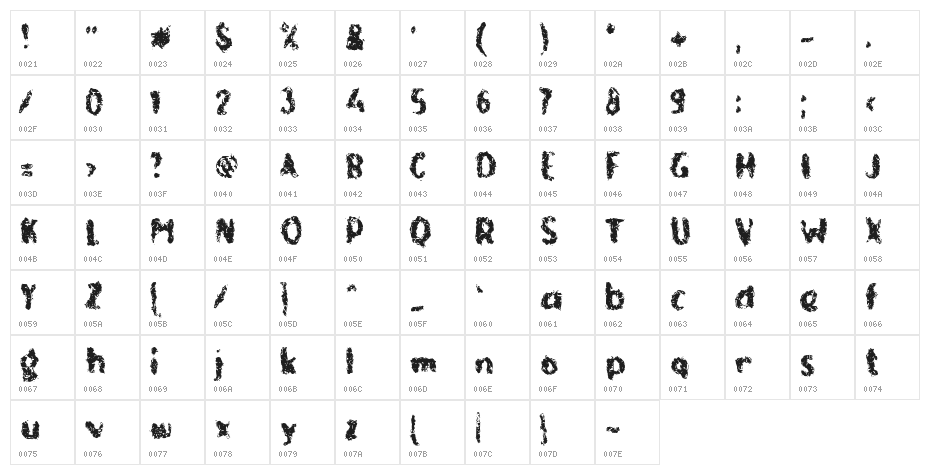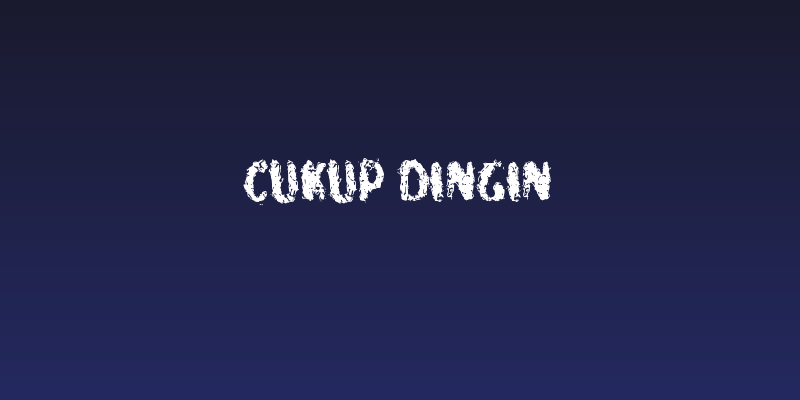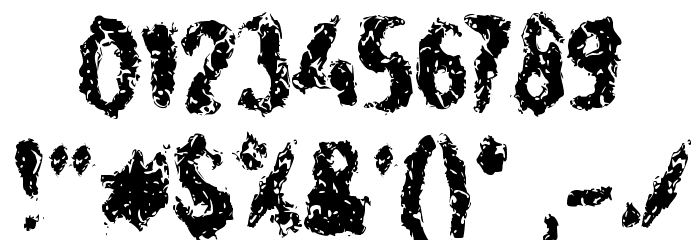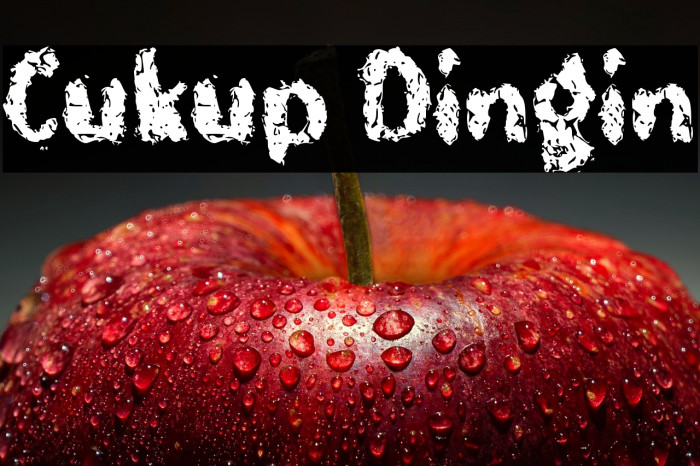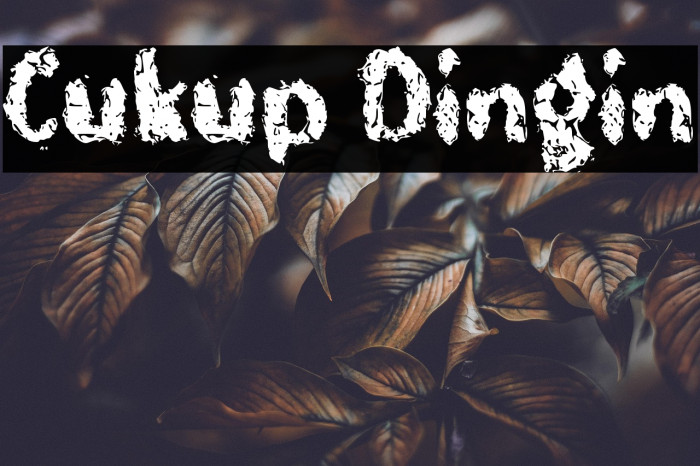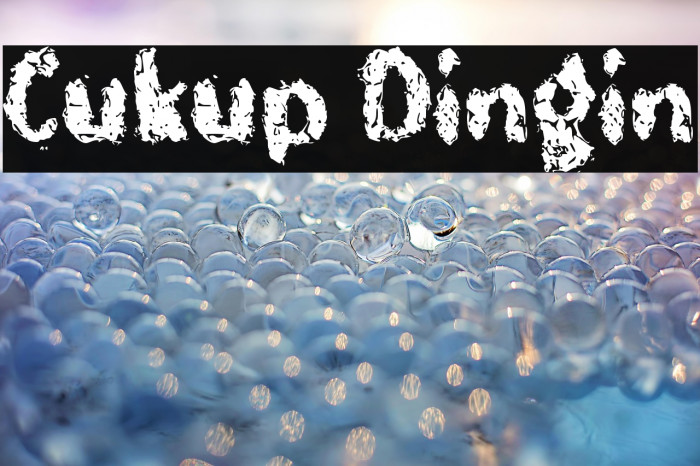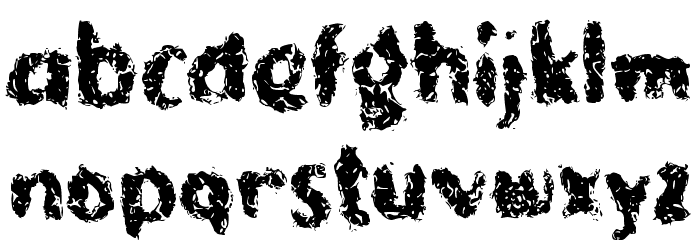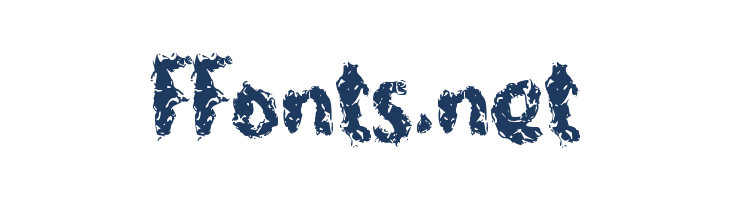
Cukup Dingin Font
This font features a highly textured and distressed appearance, reminiscent of ice or frost patterns. The characters are bold and irregular, with jagged edges and a rough, organic feel. This unique style gives the font a dynamic and energetic look, making it stand out in any design. The uppercase and lowercase letters maintain a consistent style, while the numbers and special characters are equally distinctive, ensuring a cohesive appearance across all text elements.
| Proposed Projects | Ideal for winter-themed designs, edgy posters, album covers, or any project needing a bold, unique typeface. |